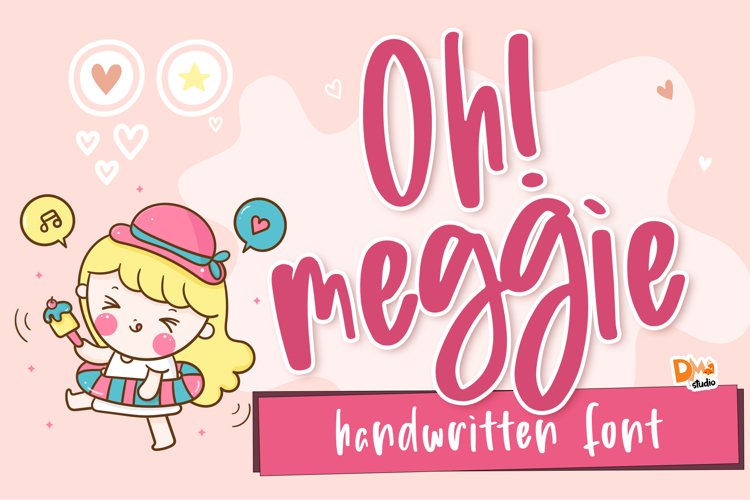
Introducing our new handwritten script font : Oh Meggie!
Cute, stylish and versatile, great for your diy crafts, birthday card, design, quotes, tshirt, sticker and more!